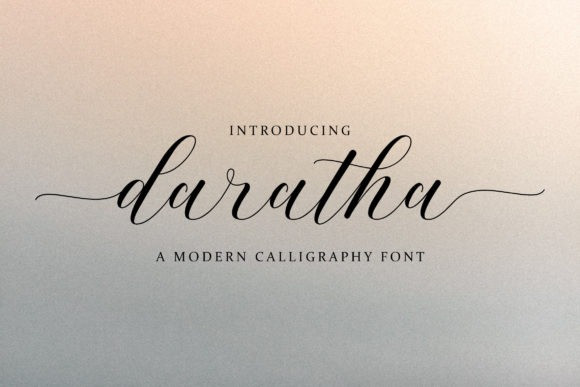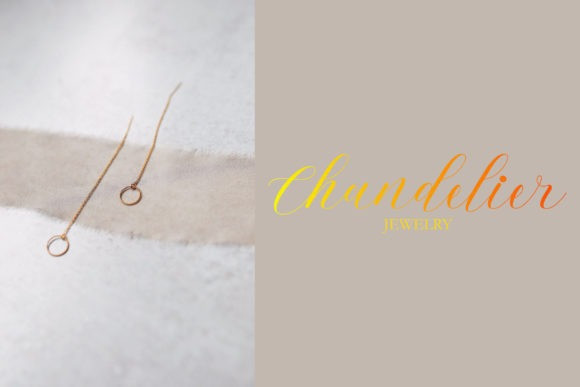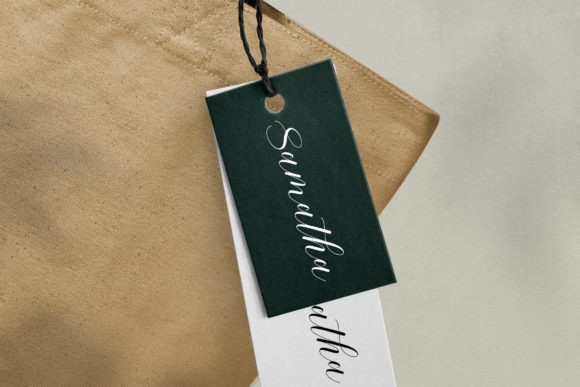
Daratha Font
Daratha is a gorgeous and stylish script font. It is perfect for any branding project such as logos, t-shirt printing, creative products, and more. This font is PUA encoded which means you can access all of the glyphs and swashes with ease.